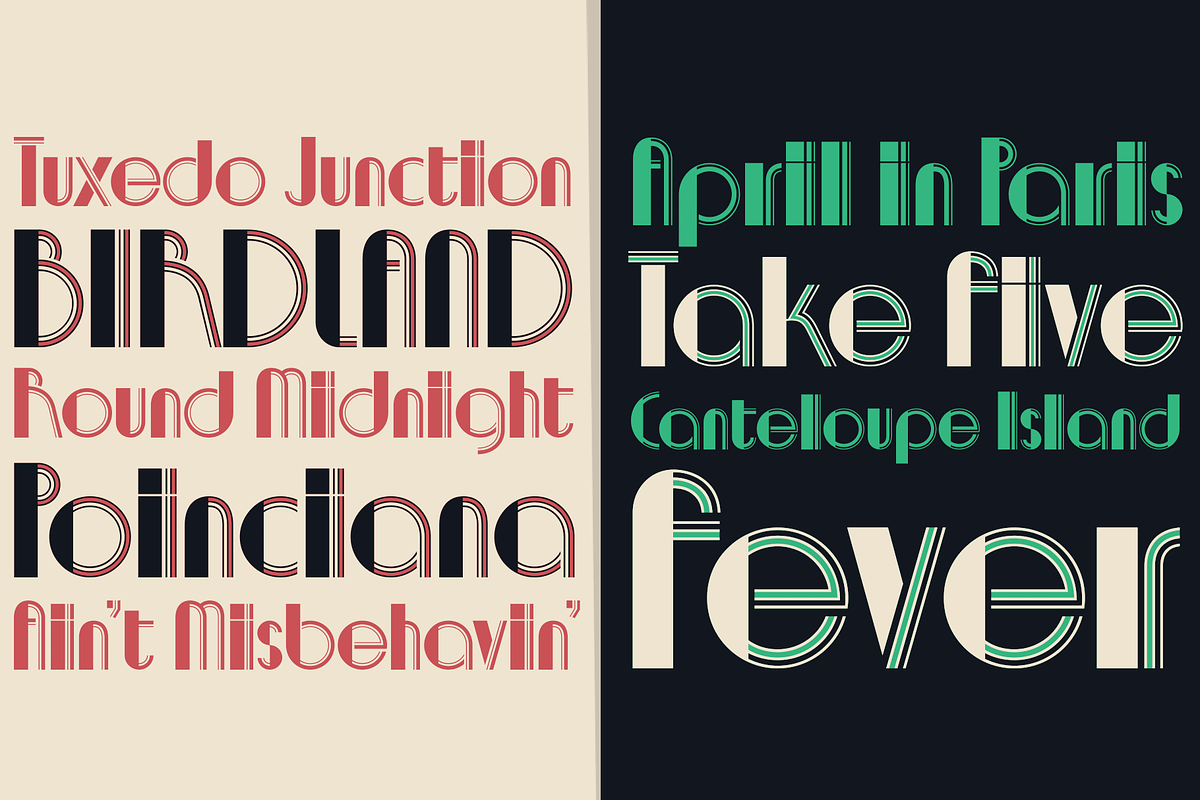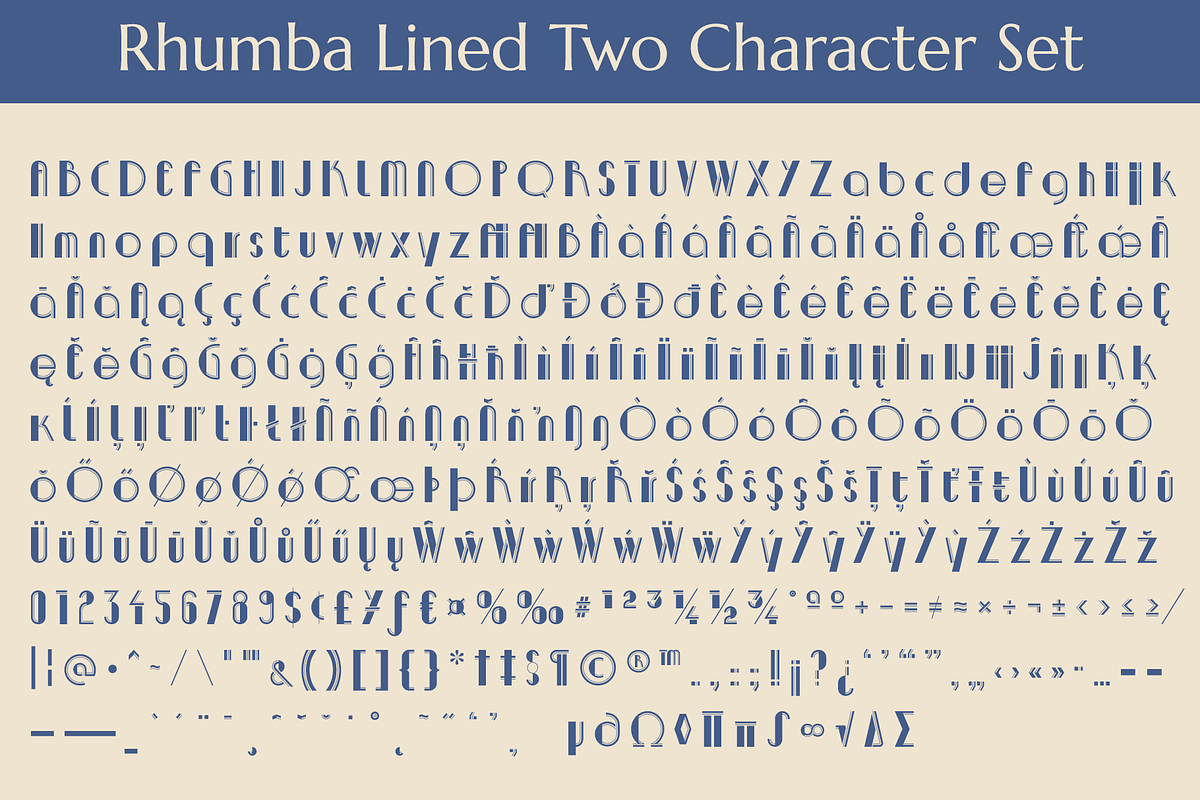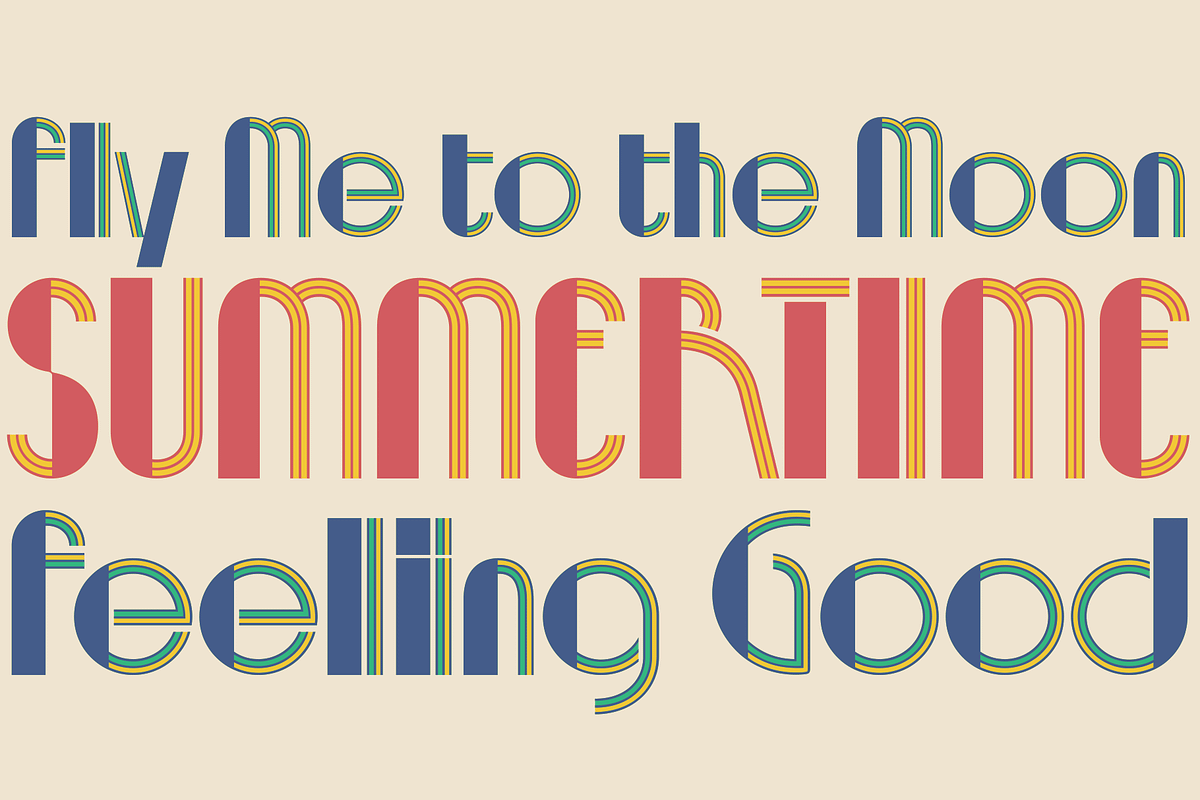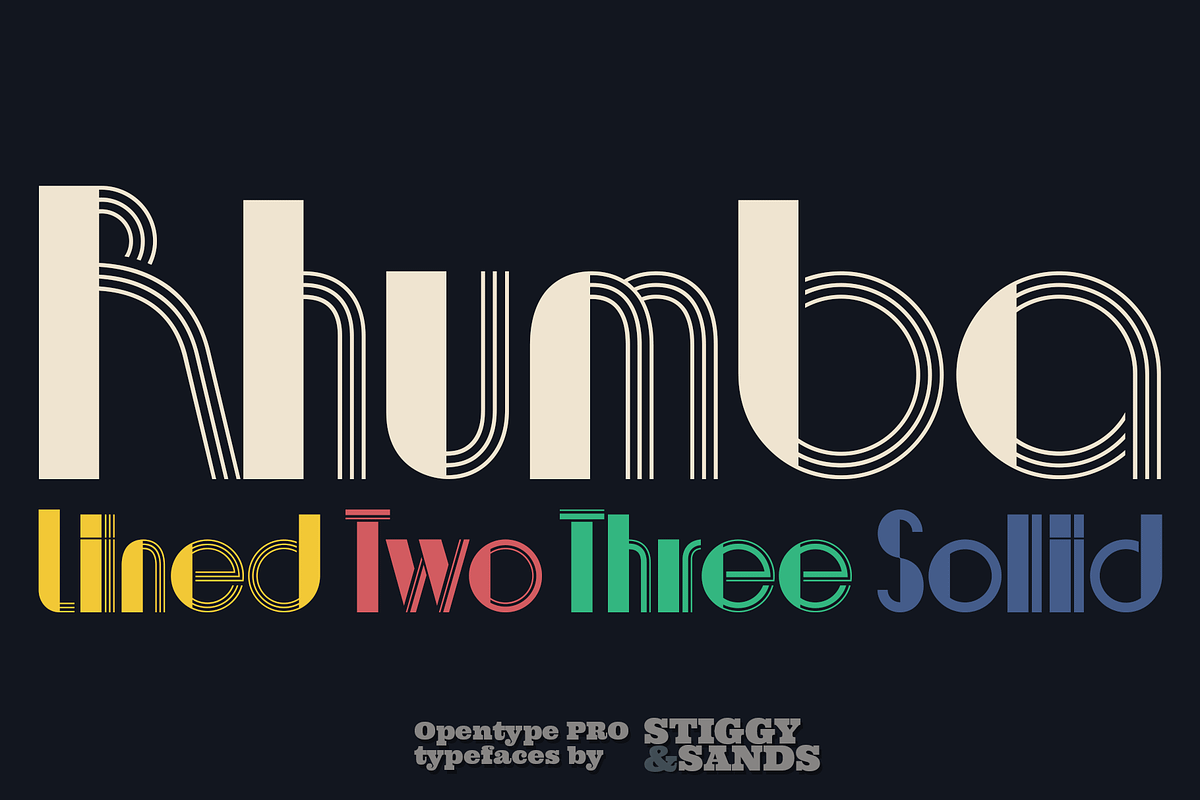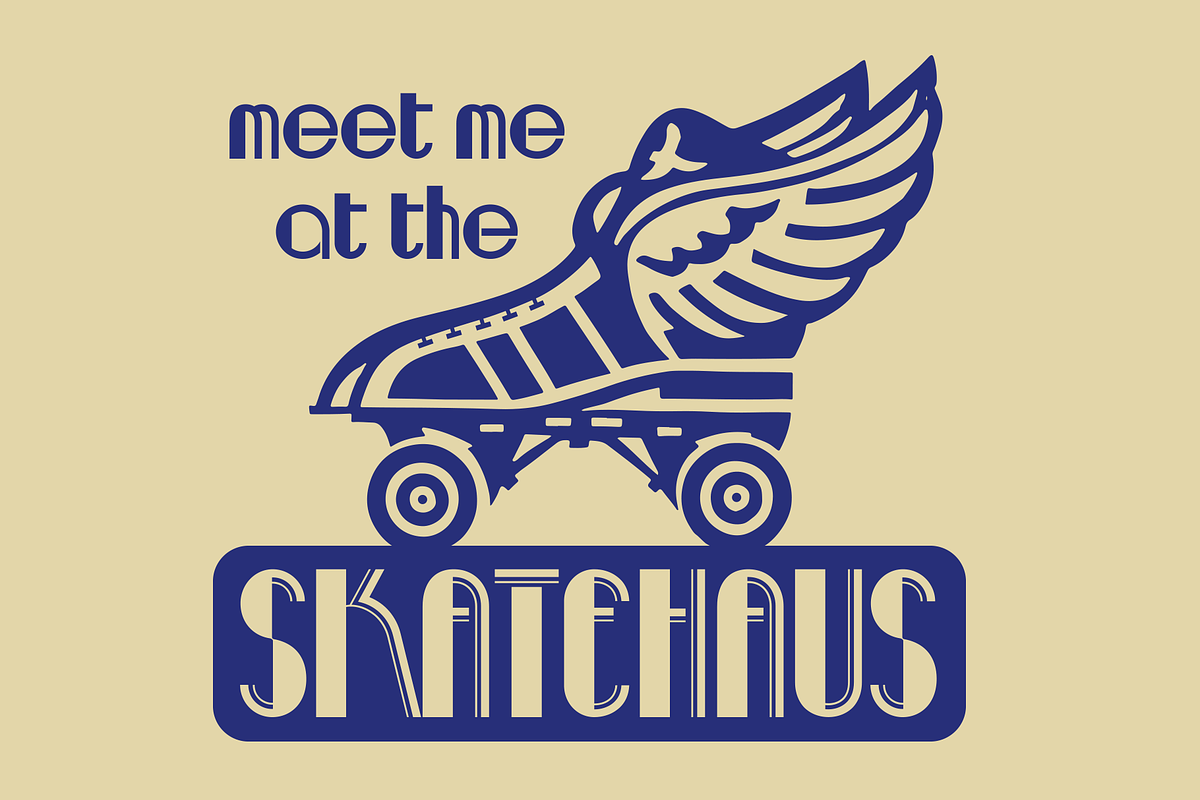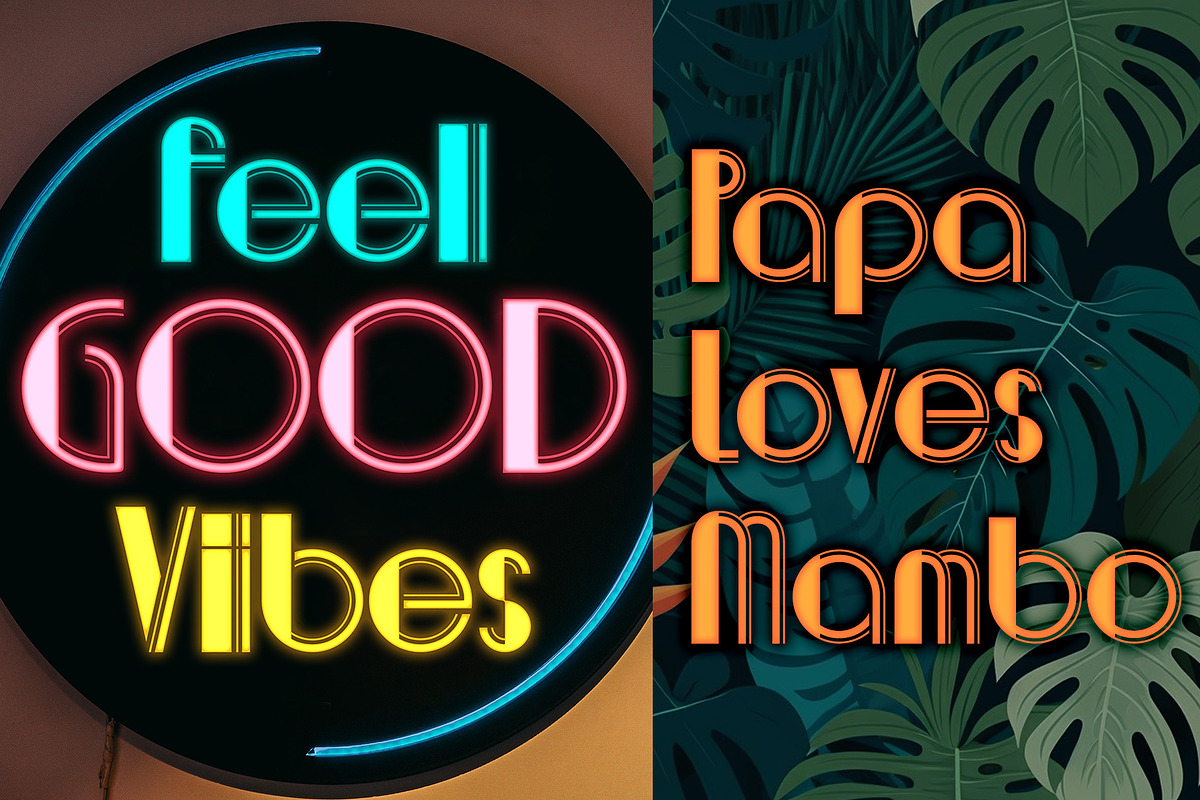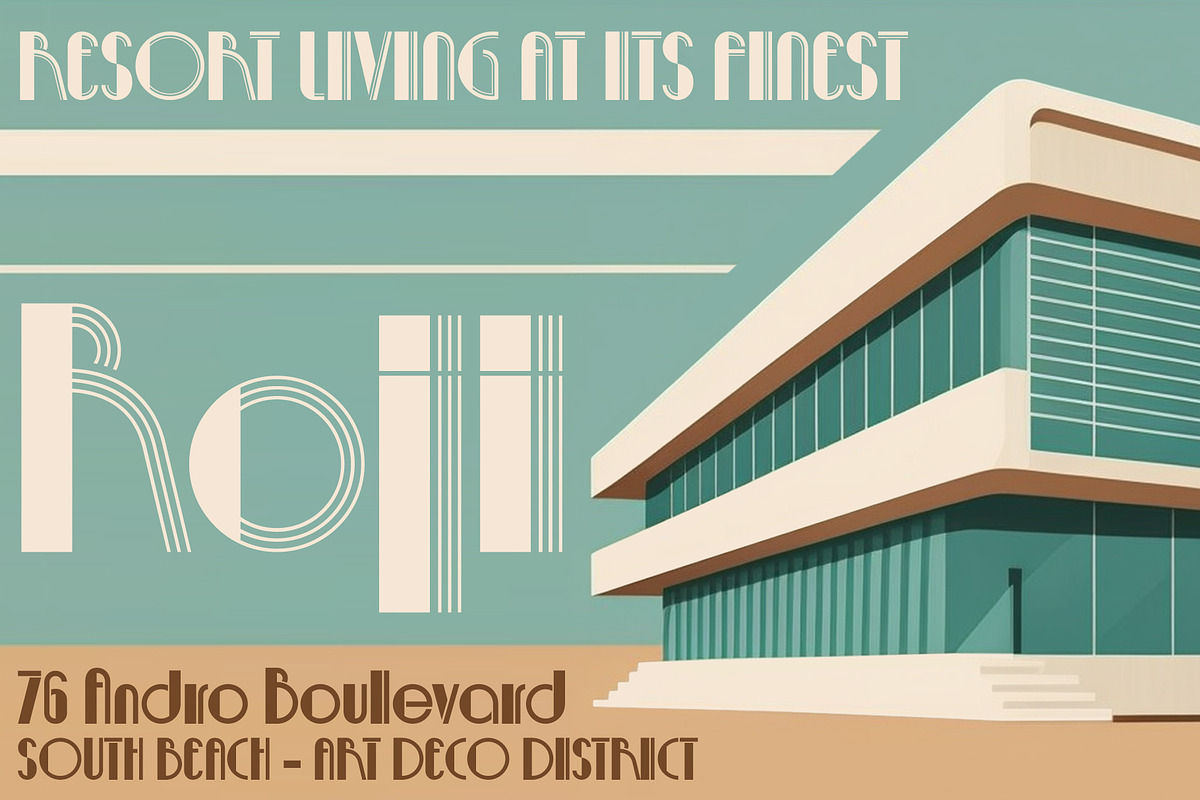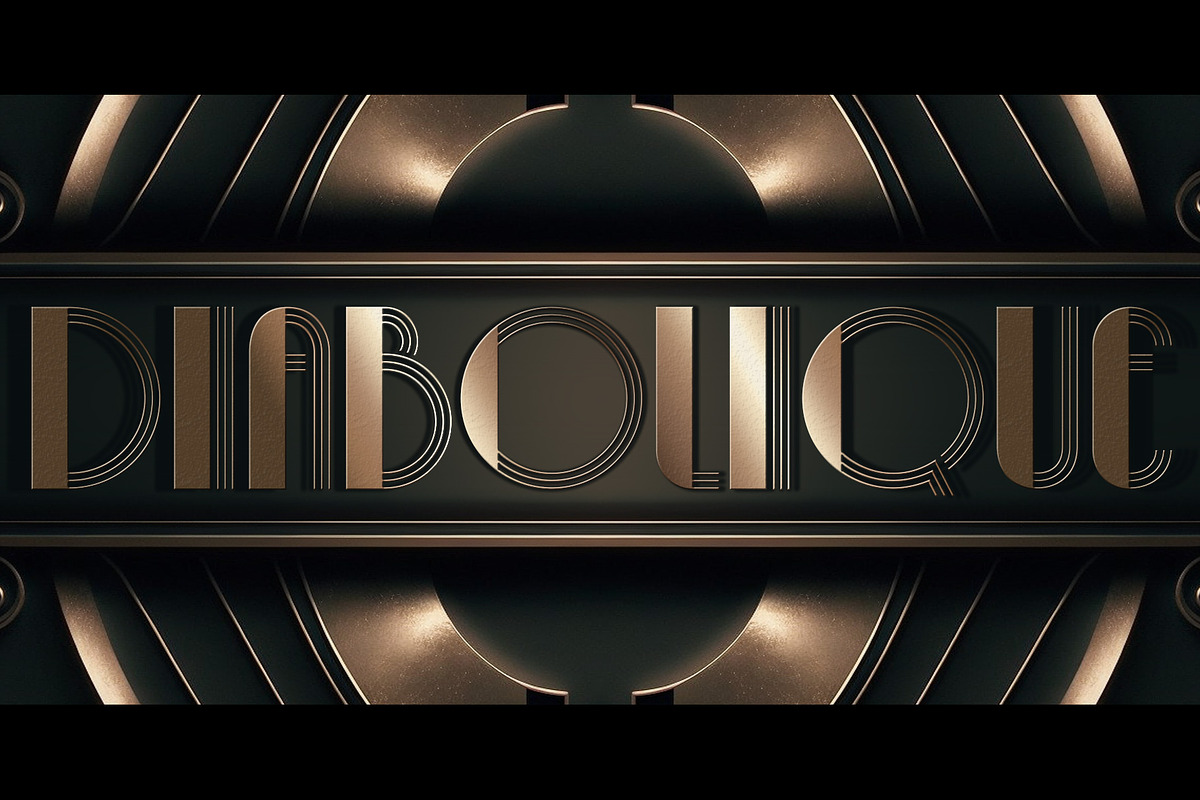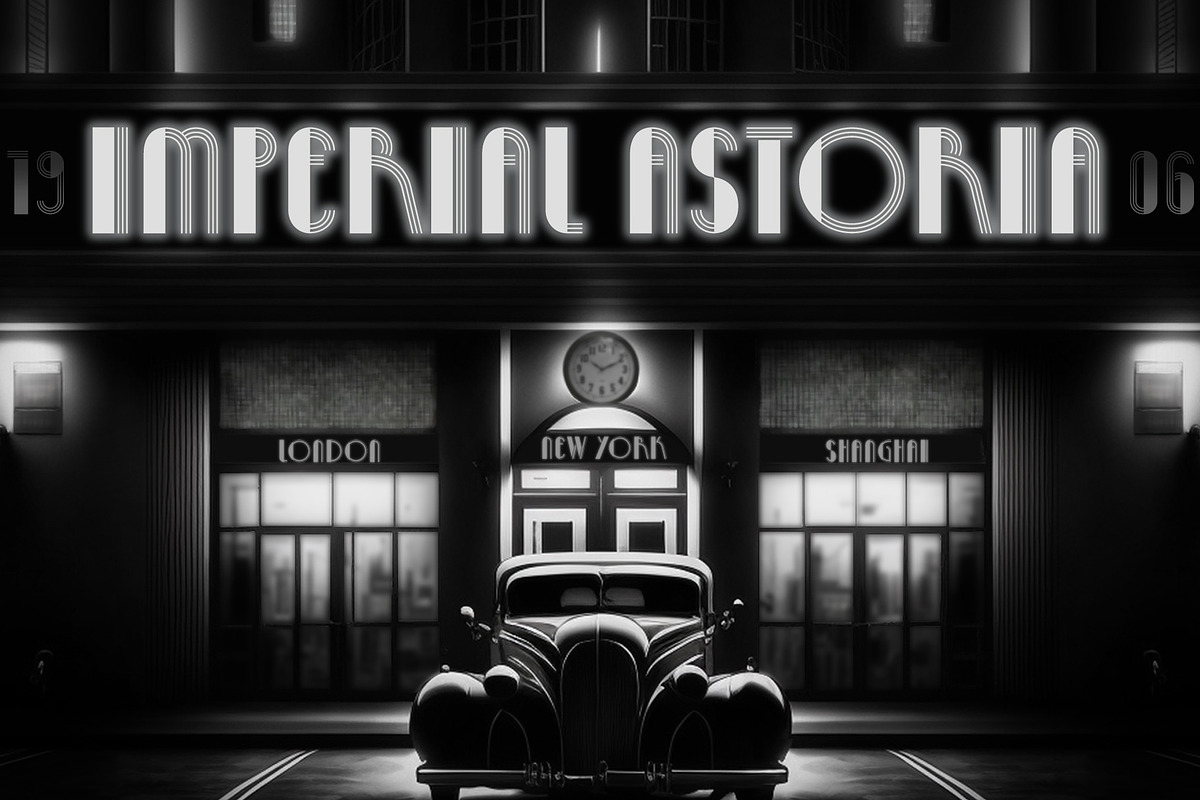
Rhumba Family
A Lost Art Deco Style Reborn and Multiplied
Rhumba began as a digitization of a film typeface from LetterGraphics in the early 70's known as "Barrio Lined". Originally only a single typeface, represented by our Rhumba Lined style, it was fun and offered more diversity to expand out the styles of this gem.
Playing off the stylings of fonts like Prisma, Rhumba fills in gaps between the various lines of the original to offer 3 alternate looks.
The Rhumba family contains 382 characters per font.